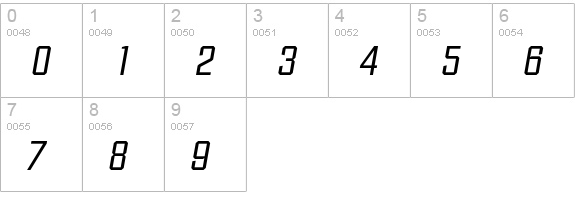
DiamanteSerial-Italic is a distinctive, italic variant in the DiamanteSerial typeface family \xE2\x80\x94 well suited to design and typography projects.
DiamanteSerial-Italic font is a stylish and elegant typeface that exudes sophistication and modernity. Its sleek, slanted characters add a touch of flair to any design project, making it perfect for creating eye-catching headers, titles, and logos. The italicized style of DiamanteSerial-Italic font brings a sense of energy and dynamism to your text, making it stand out on the page. What's even better is that DiamanteSerial-Italic font is available for free download at FontsMarket.com. This means you can easily access this high-quality font without having to spend a penny. Whether you're a designer working on a professional project or a student looking to enhance your school assignments, DiamanteSerial-Italic font is a versatile and stylish choice that won't break the bank. Download it today and take your designs to the next level!